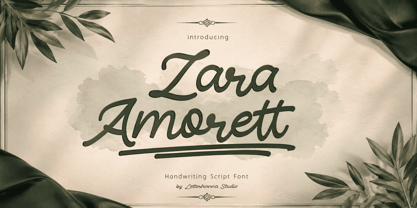
Zara Amorett
by Letterhanna Studio
The Zara Amorett Font Family was designed by Rinaldo Hasibuan and published by Letterhanna Studio. Zara Amorett contains 1 styles.
Zara Amorett is a modern urban handwritten script. Heavy and rounded shape. Zara Amorett’s attractive letterforms can be enhanced with extravagant swash, alternates, and endings. Complement your design with 24 underline swash. Try mixing your design with this font. Don't hesitate to pair it with serif or serif in your work idea. Find interesting layouts to complement your project.
Designers: Rinaldo Hasibuan
Publisher: Letterhanna Studio
Foundry: Letterhanna Studio